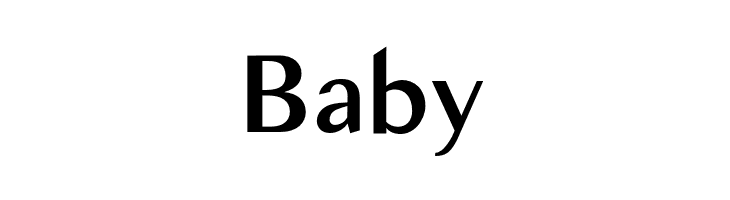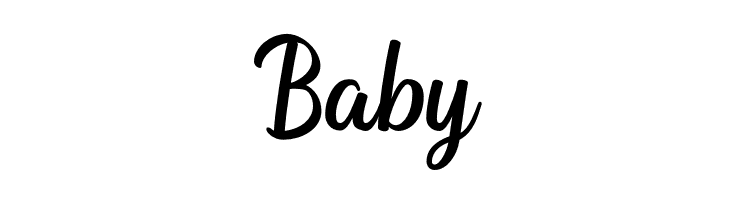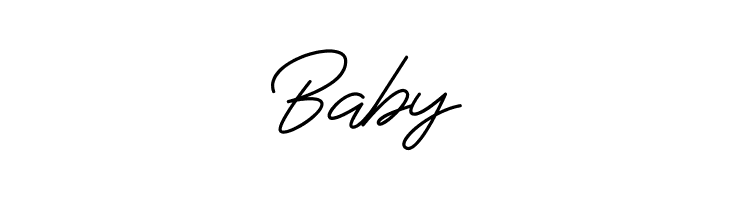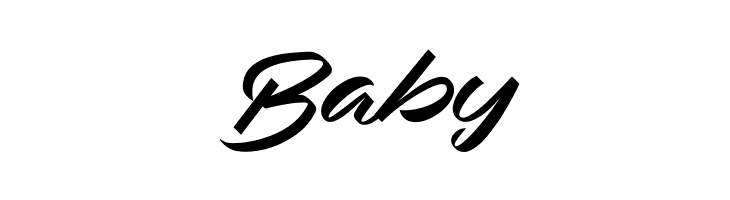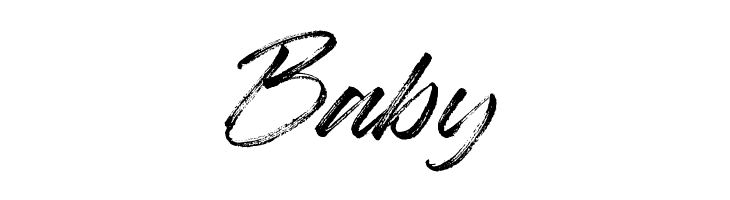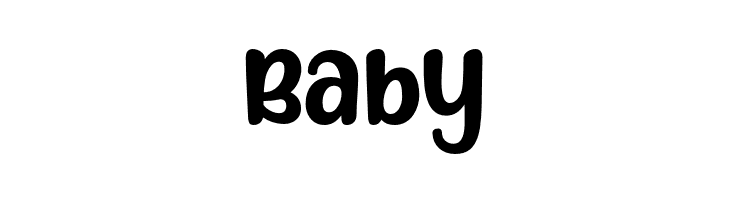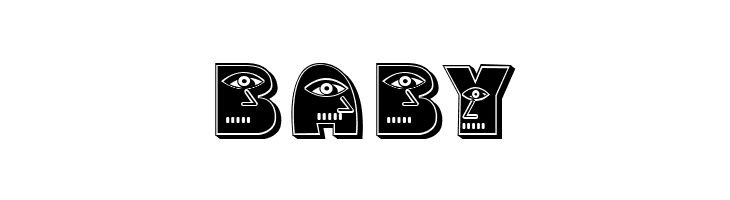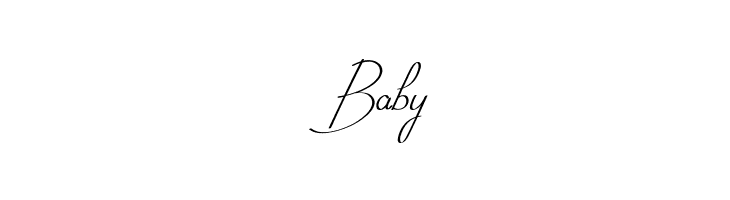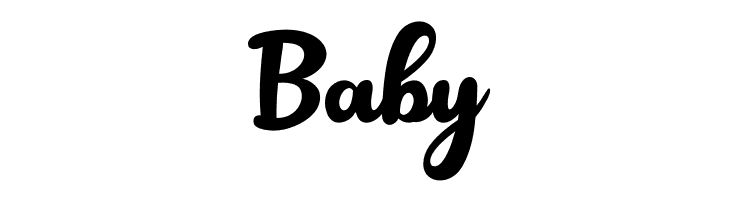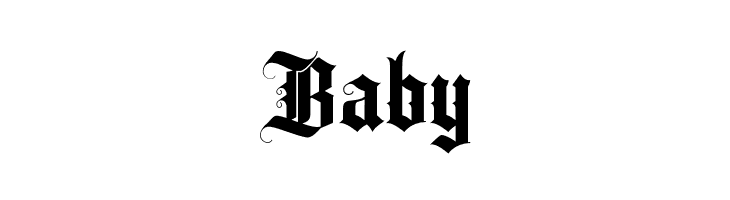
• Bagnard
A bold serif font with high contrast and sharp serifs, exuding elegance and authority.
• Bagnard Sans Regular Regular
A modern sans-serif font with clean lines and a professional appearance.
• Bagnard Sans Regular Regular
A modern sans-serif font with geometric shapes and uniform stroke width.
• Bagnolhet
An elegant script font with flowing, cursive strokes and sophisticated style.
• Bagonk
A bold, playful font with exaggerated, uneven strokes and a lively appearance.
• Bagonk Branch
A decorative font resembling intertwined branches with a naturalistic style.
• Bagonk Helloween
A bold, Halloween-themed font with playful, spooky elements.
• Bagonk-Branch
A rustic, branch-inspired font with an organic, naturalistic style.
• Bagonk-Helloween
A bold, playful Halloween-themed font with jack-o'-lantern faces on each character.
• Bagpack
A bold, distressed font with a grunge texture, ideal for impactful designs.
• Bagstore
An elegant, cursive font with flowing, interconnected letters and ornate flourishes.
• Bagstore Italic
An elegant, italicized script font with flowing, connected strokes.
• Baguette
A dynamic, brush-style cursive font with a hand-drawn appearance.
• Bagus
A playful, bold font with rounded edges and a hand-drawn style.
• Bagus Stanlley
A delicate and elegant script font with flowing, thin strokes.
• Bagus Stanlley
A delicate and flowing script font with elegant cursive letterforms.
• Bahanalia Black Regular
A bold, playful display font with artistic and whimsical elements.
• Bahar Regular
A bold, decorative font with a double-line shadow effect.
• Bahari
A dynamic and flowing script font with elegant, cursive letterforms.
• Bahary
A playful handwritten font with smooth, flowing lines and a casual aesthetic.
• Bahasa Indonesia